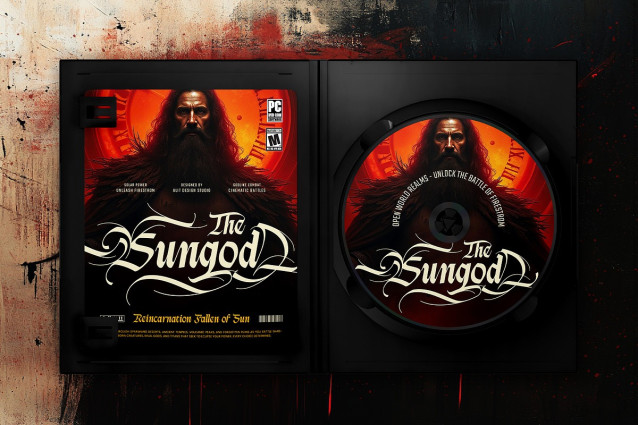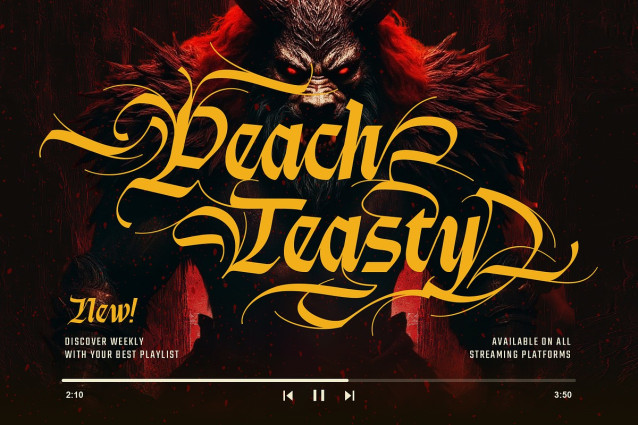
Micky Rinse Font
Micky Rinse Font, a blackletter typeface that defies convention and breathes a fierce, modern spirit into gothic tradition. Designed with meticulous attention to detail by Alit Design Studio, Micky Rinse is not just a font—it’s a statement.
With its razor-sharp edges, dramatic swashes, and aggressive yet elegant flow, Micky Rinse captures the rebellious soul of tattoo culture, the raw energy of heavy metal, and the dark allure of epic fantasy. Each letter is crafted to command attention, making it the ultimate tool for projects that demand a bold and unforgettable identity.
Micky Rinse is a powerhouse of creative possibilities, packed with an incredible 921 glyphs. Dive into a treasure trove of stylistic alternates, ligatures, and decorative elements that allow you to customize your text limitlessly. Whether you’re designing a menacing logo, an immersive movie poster, or a piece of statement apparel, this typeface gives you the freedom to create something truly unique and powerful.